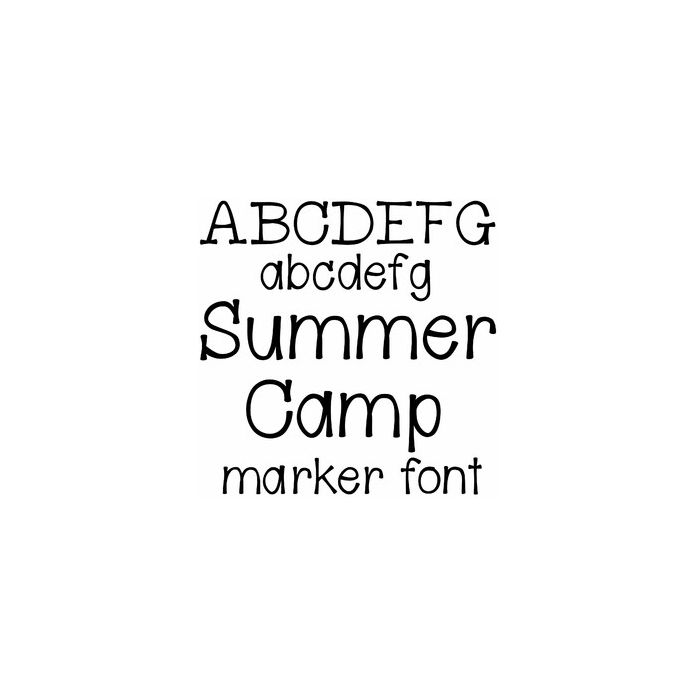
Summer Camp is a cute marker style font for monograms, birthday cards, signs, and personalization projects. Includes alphabet, numbers, and punctuation.